There are thousands of free fonts available today, but most can be broken down into 5 broad categories, or “font families”, which are available when you use our logo maker tool. All of these styles offer unique characteristics, and the fonts in these families play a significant role in their symbolic meaning – making an impact on your final logo design.
Serif Fonts
These are the oldest types of fonts, with the first examples appearing as early as the late 15th century. The word ‘serif’ refers to the small feet present at the tops and bottoms of each letter. These tiny flourishes stemmed from artists’ brushes and would be added to the letters as decorative elements.
Serif fonts can be broken down even further into several subcategories (Old Style, Classical, Neo-Classical, Transitional, Clarendon, etc.). Today, Serif fonts are among the most popular typefaces in use, with styles like ‘Times New Roman’ being ever-present in books, documents, and even some logos.
This style of font is characterized by a more conservative design and (some of the many subclasses notwithstanding) the presence of serifs at the tops and bottoms of most letters.
Brands that use serifs: Zara, Tiffany & Co, Abercrombie & Fitch.
Psychology of serif fonts: Serif fonts are popular with companies that are seeking to portray an elegant, sophisticated brand. Logos with these types display an air of tradition, respectability, and reliability.
Additionally, serifs help companies seem more established and are ideal for communicating an identity based around authority and grandeur. Organizations in academic, editorial, and financial fields favor serif fonts thanks to the conservative and respectable appearance they give off.
Sans Serif Fonts
Sans serif fonts dispense with the flourishes of their predecessor for a cleaner, more modern approach, and this contrast makes them pair well with serif fonts. They date back to the 19th century and became immensely popular in the 1920’s and 30’s. During the mid-20th century, German designers further expanded the typeface with the creation of the popular Helvetica design.
These fonts are defined by their clean, straight lines. They feature no flourishes and emphasize readability and simplicity for a more scalable look. Sans serif fonts can also be broken down into several subcategories, including Grotesque, Square, Geometric, and Humanistic styles.
Brands that use sans serifs: LinkedIn, Calvin Klein and The Guardian.
Psychology of Sans Serif: These types of fonts offer a clean, no-nonsense look. They emphasize clarity, with a forward-thinking approach – but they can also be bold and used as attention-getters, thanks to their polished and efficient design. Companies that pick this font family prioritize a sense of sensibility and honesty that has no need for flourishes or flair.
Slab Serif Fonts
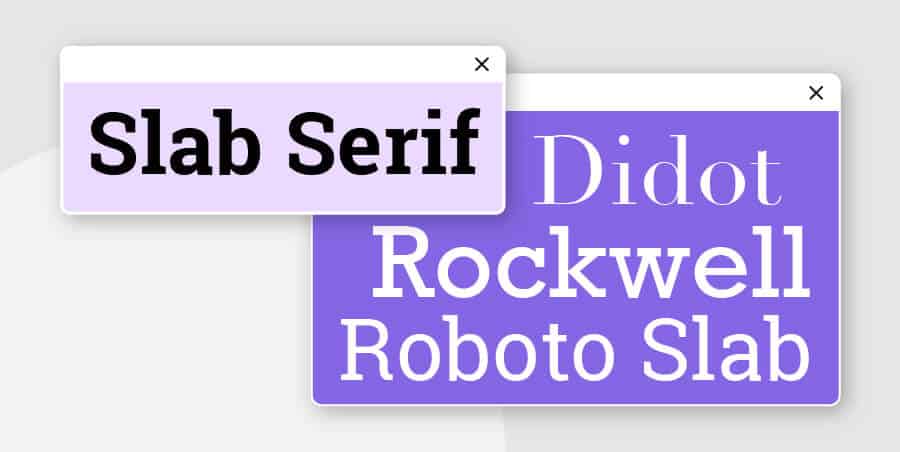
Slab serif is a variant of the traditional serif typography that emerged in the 19th century. These typefaces are bold and emphasize a departure from their classic counterparts. The feet that define serif fonts are larger and block-like (read: looking like “slabs”).
These types of fonts are characterized by their solid and bold approach and are more at home with modern brands than classical ones. These fonts can be either rounded or angular, with some closely resembling typewriter styles.
Brands that use slab serif: Sony, Honda, and Volvo.
Psychology of slab serif fonts: These fonts are all about the loud, bold image. They convey a sense of confidence, dependability, and creative thought thanks to their heavy lines and less delicate serifs. Brands attempting to make a big splash or indicate how innovative their ideas and products are choose slab serif types, as they can help communicate a sense of importance and need.
Script Fonts
Casual script styles rose to popularity in the 20th century and tone down significantly on the flourishes.
These types of fonts also dispense with the blocky print look in favor of a more natural-looking cursive style. Scripts come in two major sub-categories – formal or casual – and are designed to resemble handwritten calligraphy.
Formal scripts are defined by their flourishes and curls, which are called ‘swashes.’ Generally, it’s recommended to use these fonts sparingly, as they can affect readability and make word or letter marks hard to understand and scale. Casual script fonts are more low-key than formal ones and emphasize legibility.
Brands that use script fonts: Coca-Cola, Instagram, and Cadillac.
Psychology of script fonts: Generally, script fonts evoke ideas of elegance, creativity, freedom, and femininity. Their curved and flourished styles also communicate a more hands-on, personal approach to business. Companies that want to convey a particular emotion can use script fonts to great effect. Similarly, script fonts are perfect for those attempting to transmit a sense of unique and artful thought.
Choosing the appropriate font is a critical aspect of any brand identity. The right one can give your brand additional layers of symbolism, to help you better communicate your company’s values and goals.
Make sure to consider how each type and font style complements your brand image. By finding the right blend of types and design elements, your brand can communicate the story of your company the way it was meant to be told.